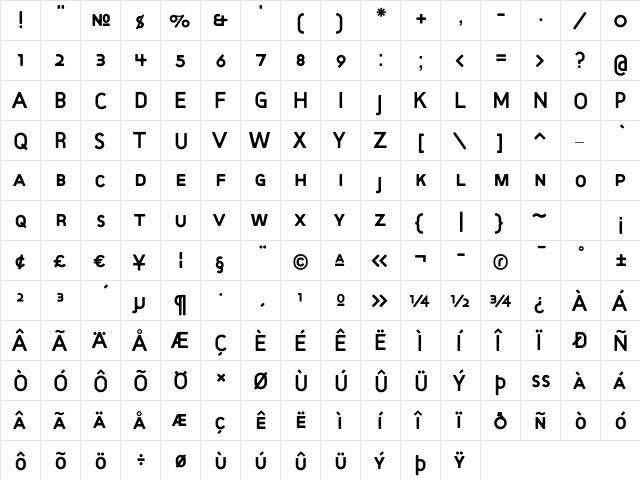
TargetSmall Caps Regular Font Preview
TargetSmall Caps Regular
TargetSmall Caps Regular Font Details
Design Context for TargetSmall Caps Typeface
TargetSmall Caps offers clean, dependable letterforms without strong stylistic allegiance, making it a practical choice for designers who need flexibility.